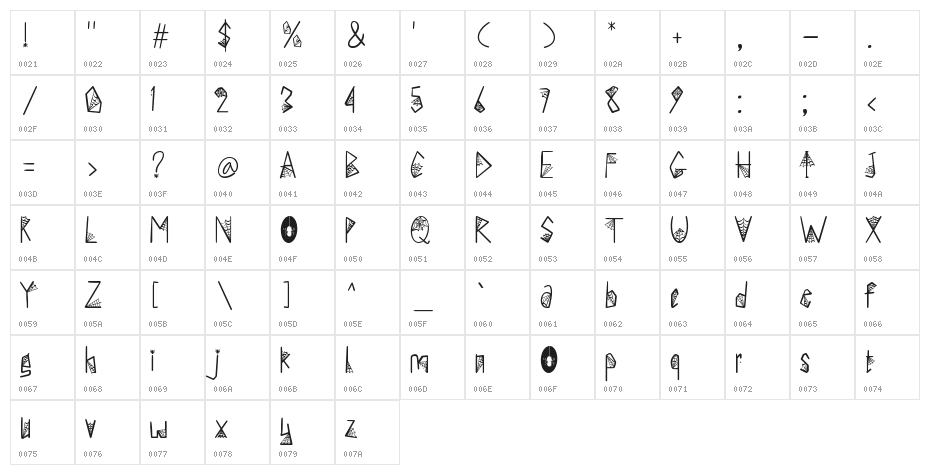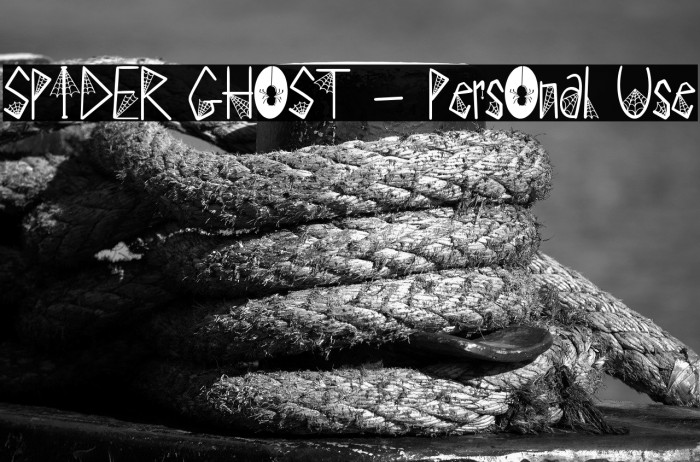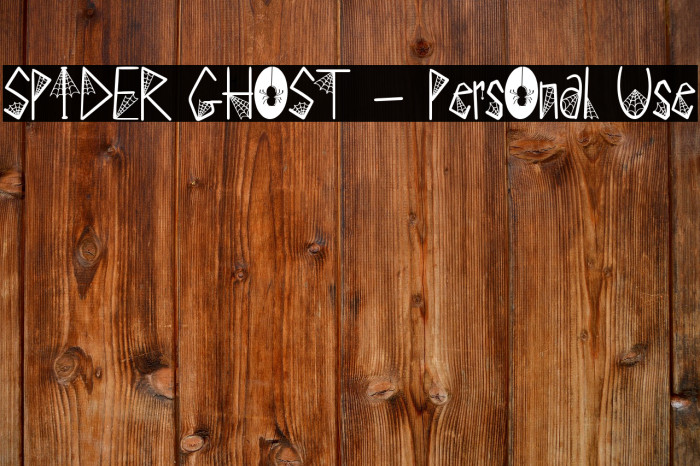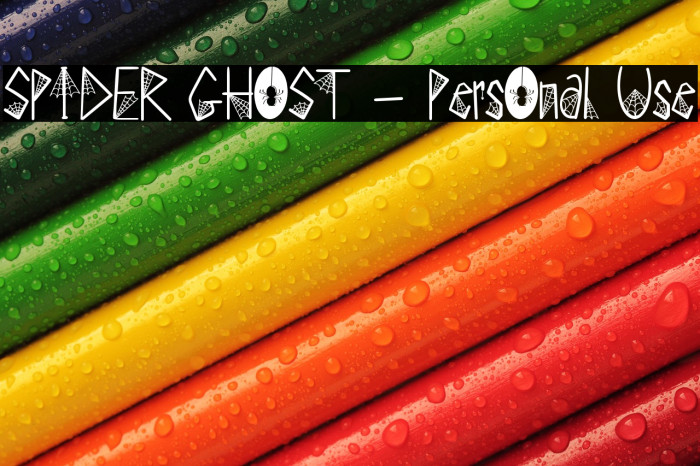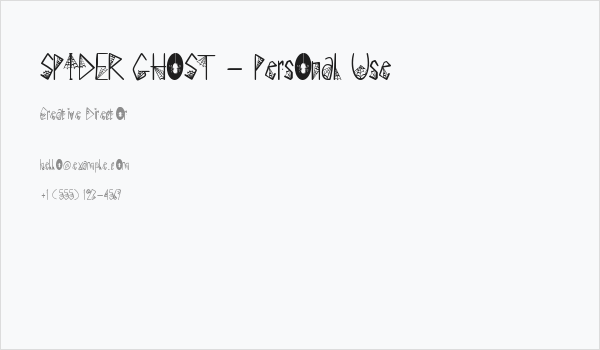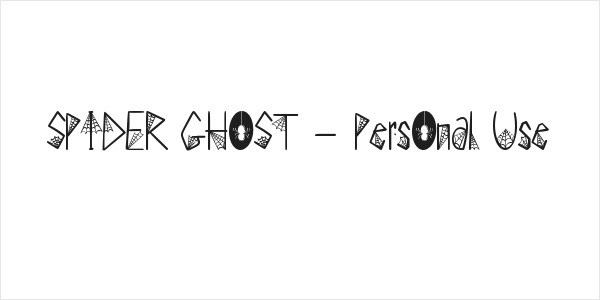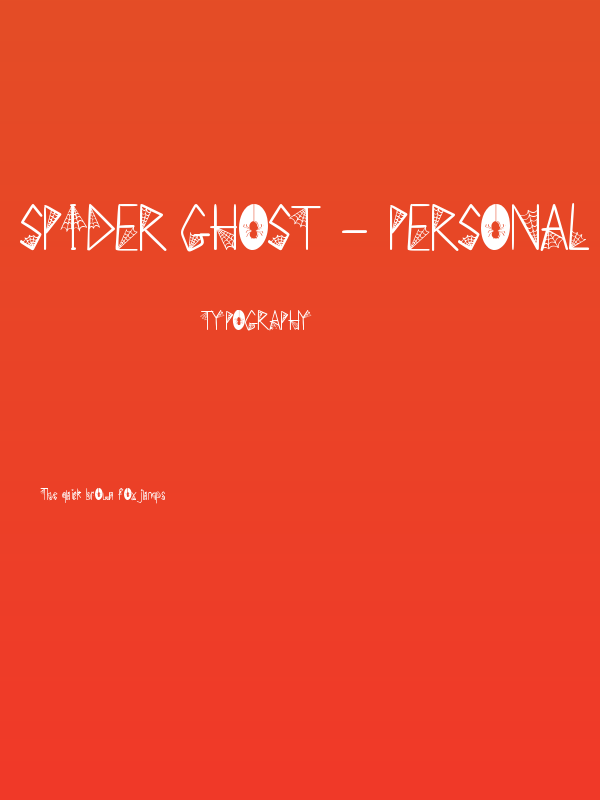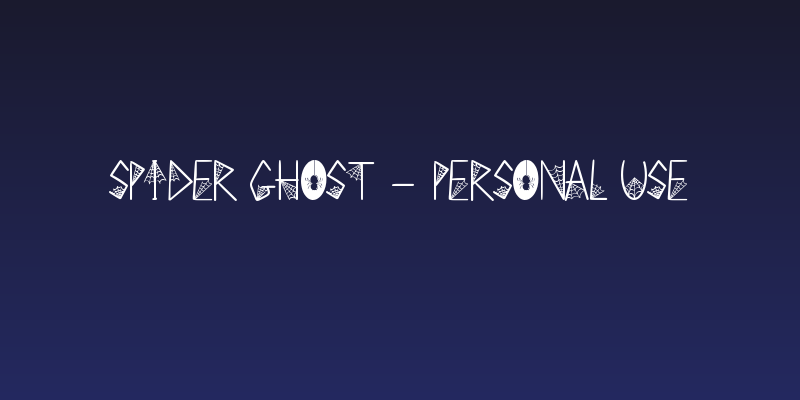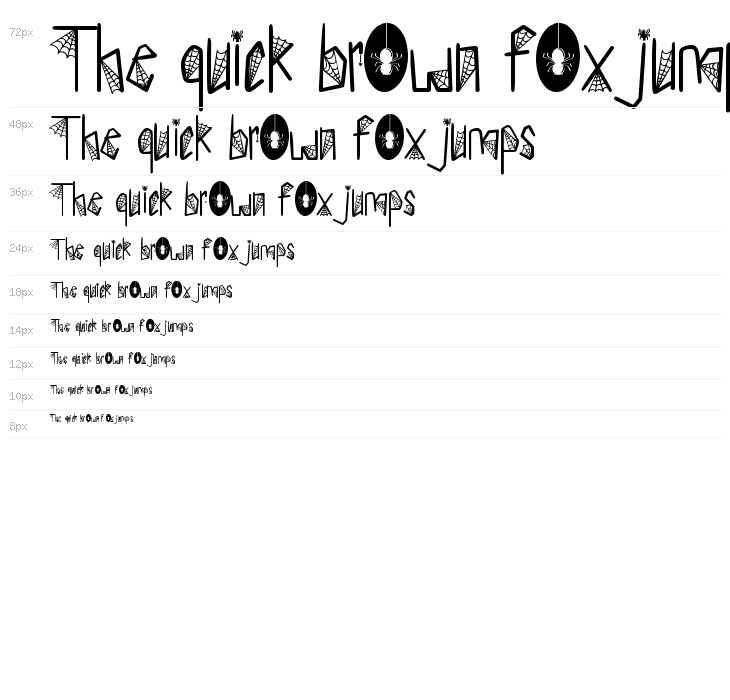
SPIDER GHOST - Personal Use Font
SPIDER GHOST - Personal Use Description
This font features a playful and spooky design, incorporating elements like spider webs and spiders into the letterforms. Each character is uniquely styled with web-like patterns, giving it a distinct Halloween or horror theme. The uppercase and lowercase letters maintain a consistent style, with angular and sharp edges that enhance the eerie aesthetic. Numbers and special characters are also designed with similar motifs, making the font cohesive throughout. Its decorative nature makes it ideal for themed projects, especially those related to Halloween or anything requiring a spooky touch.
| Proposed Projects | Ideal for Halloween invitations, horror-themed posters, party decorations, and themed merchandise. |